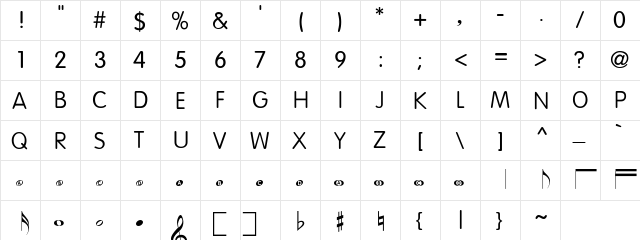
KIDdemo Regular Font Preview
KIDdemo Regular
Design Context for KIDdemo Typeface
KIDdemo offers clean, dependable letterforms without strong stylistic allegiance, making it a practical choice for designers who need flexibility.
Pro Tip: Use KIDdemo in both headline and body roles to test its range before committing to a single application.